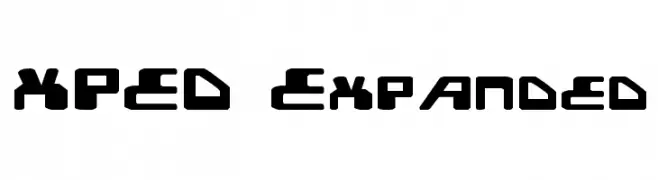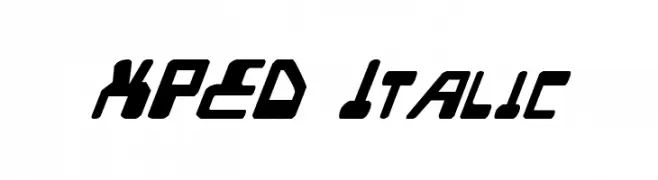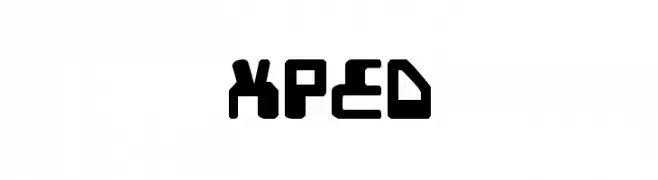
A decorative font with Celtic-inspired interwoven patterns and bold, ornate letters.
A bold, frizzy font with jagged edges, perfect for playful designs.
A bold, geometric font with a shadow effect and a modern, futuristic style.
A bold, geometric font with a futuristic and striking appearance.
A bold, geometric font with a distressed, industrial style.
A bold, futuristic font with geometric shapes and a strong, modern presence.
A bold, italic font with a futuristic and angular design.
A bold, geometric font with a futuristic and tech-inspired design.